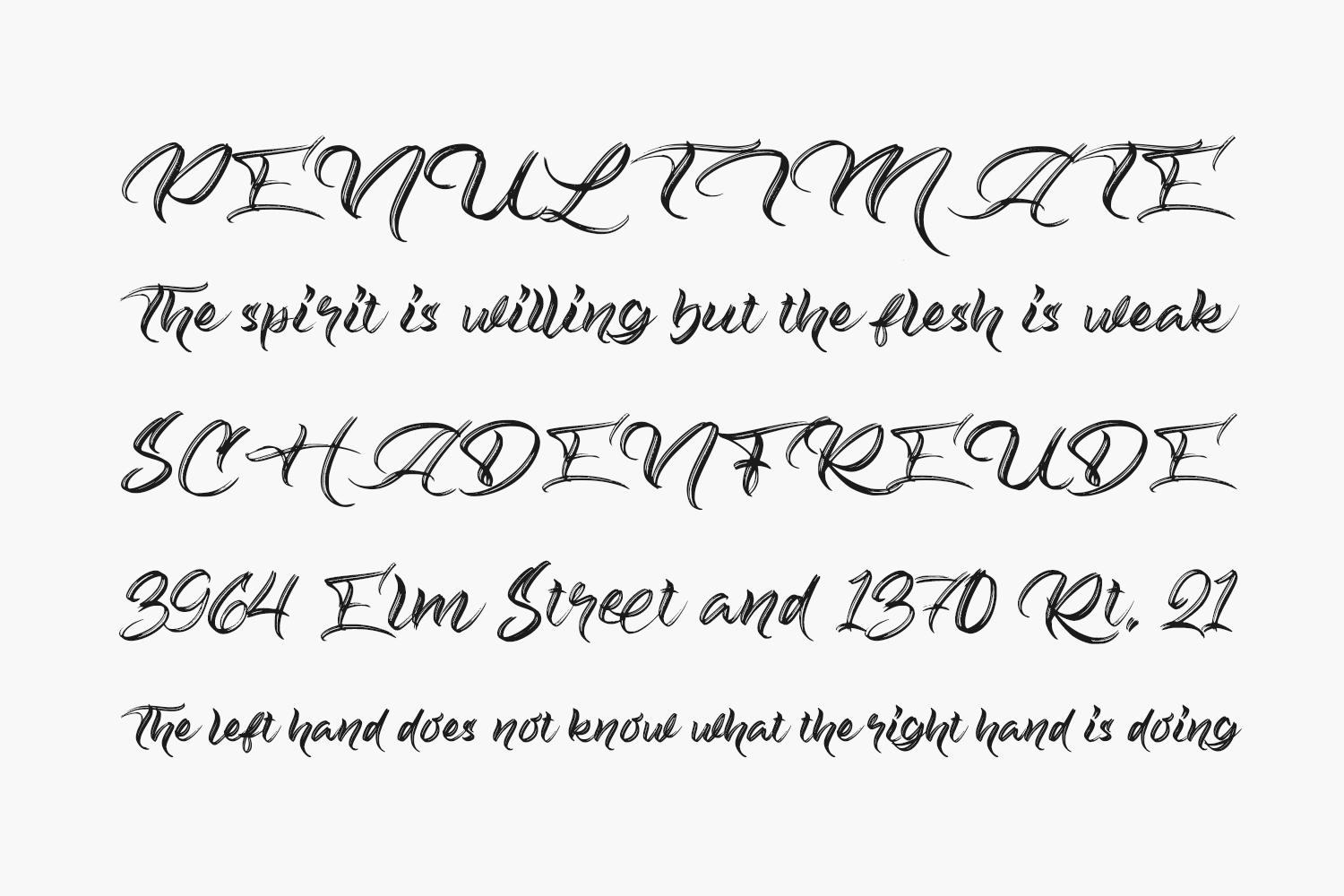
Biograph Free Font is a casual brush style script font. This font is the ideal font for adding an adventurous and authentic feel to your next design idea. Biograph Free Font was designed by Figuree Studio and is free for personal use only. Please purchase the full version for commercial use.